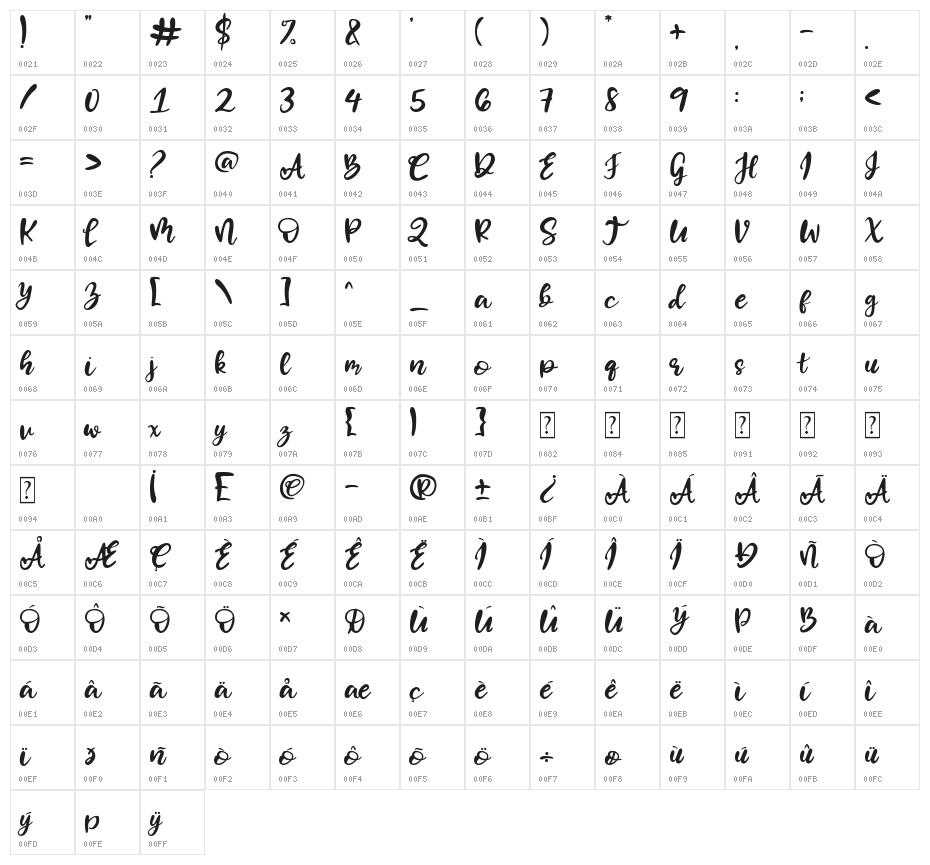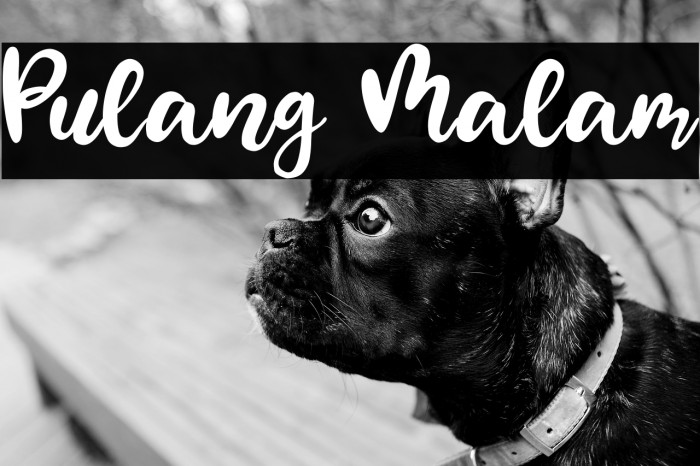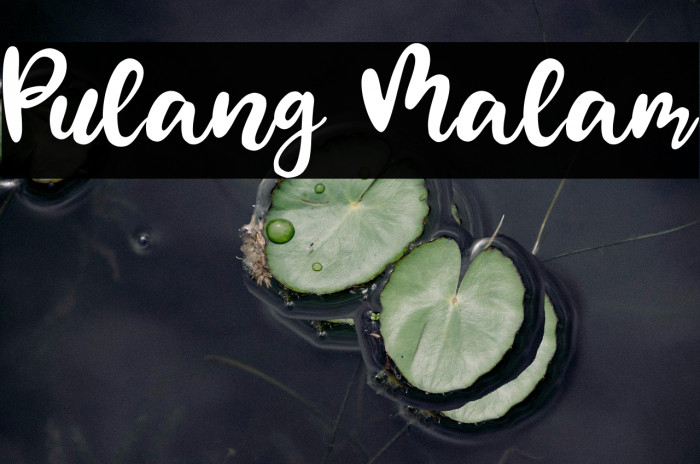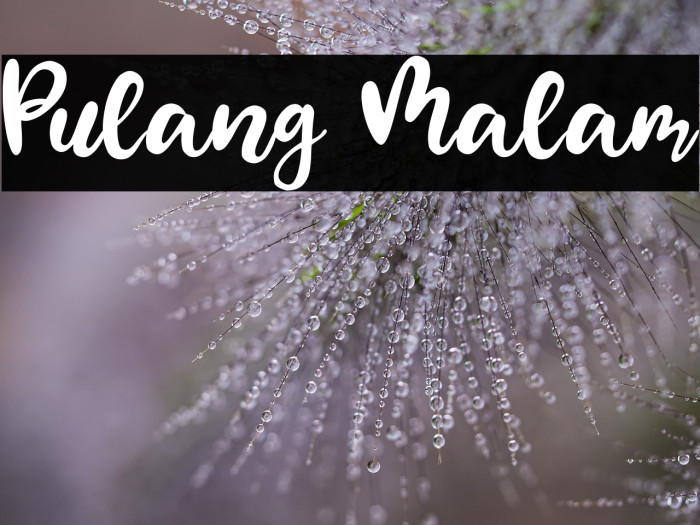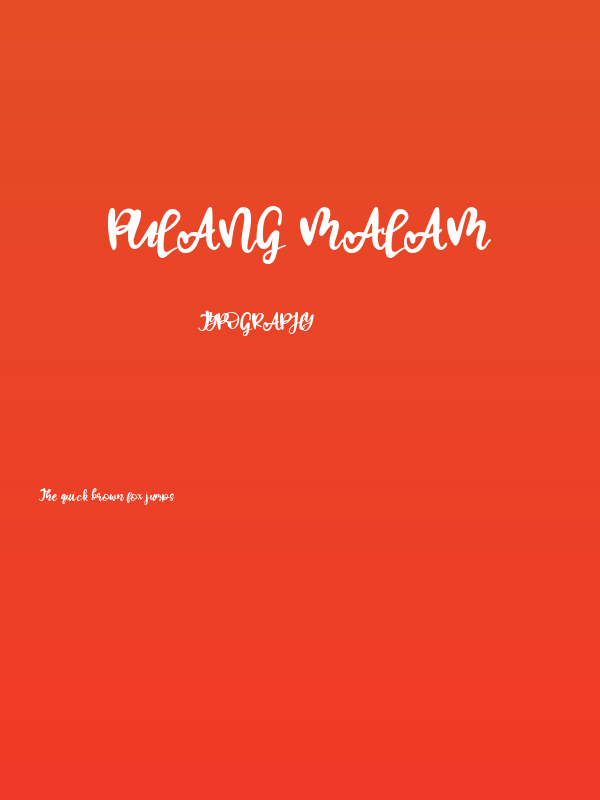
Pulang Malam Font
Pulang Malam Description
This font exudes a bold and expressive style, characterized by its flowing, cursive script that mimics the fluidity of handwriting. The letters are interconnected, creating a seamless and dynamic appearance. The strokes are thick and consistent, providing a strong visual impact. The uppercase letters are particularly elaborate, with dramatic loops and swirls, while the lowercase letters maintain a more subdued yet still lively form. The numerals and special characters follow the same stylistic cues, ensuring a cohesive look across all elements. This font is perfect for projects that require a personal touch or a sense of elegance and flair.
| Proposed Projects | Ideal for wedding invitations, greeting cards, branding, and social media graphics. |